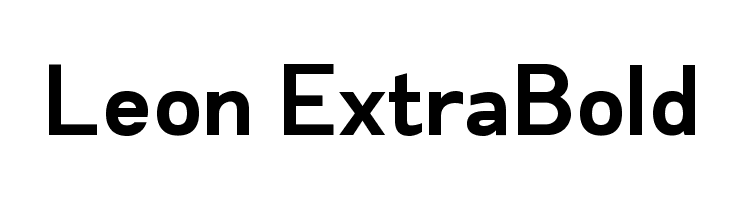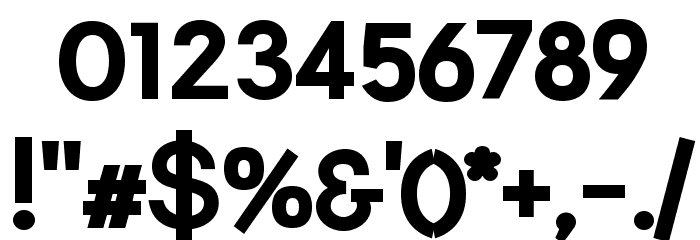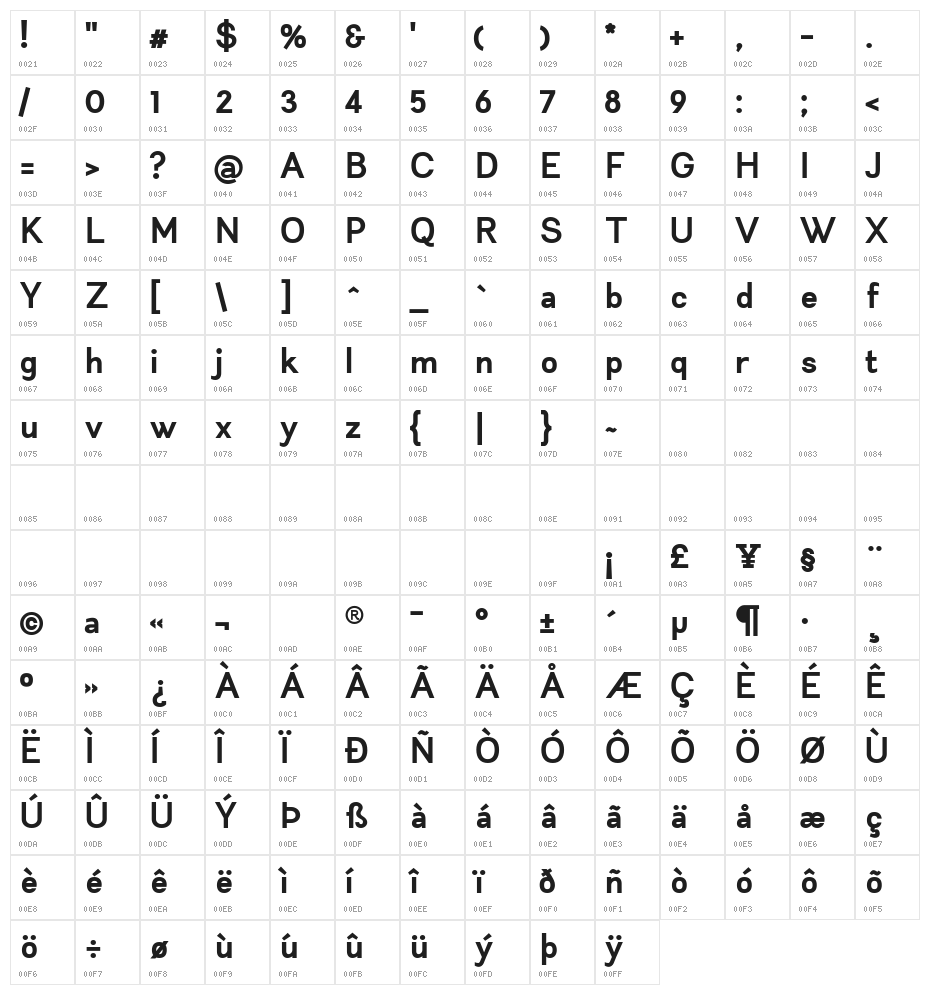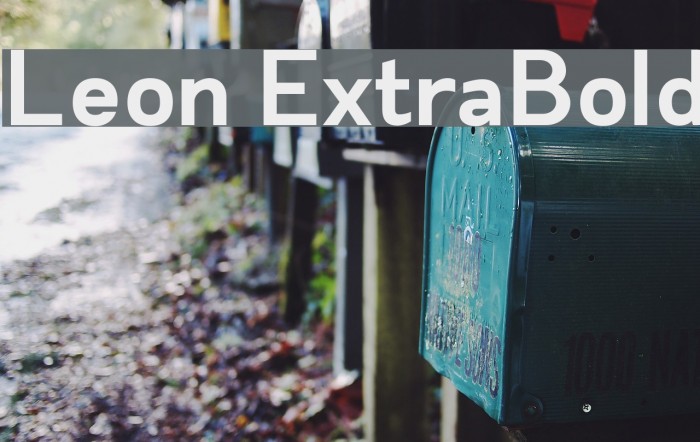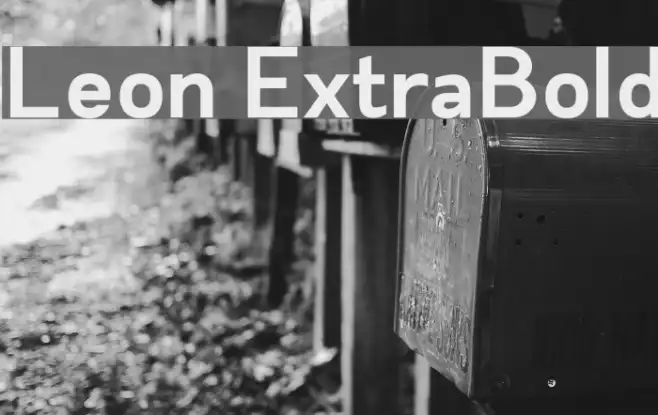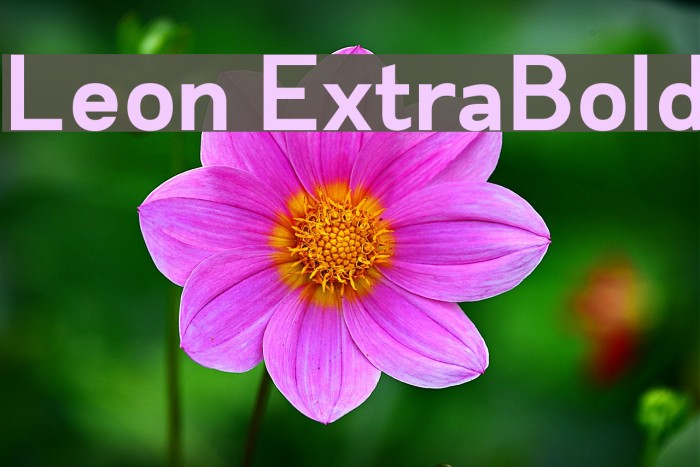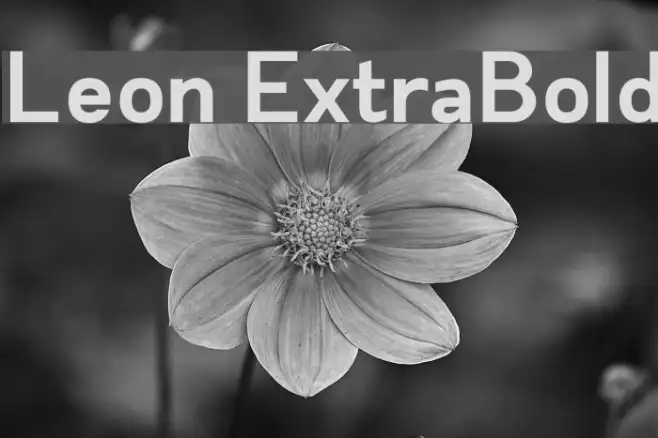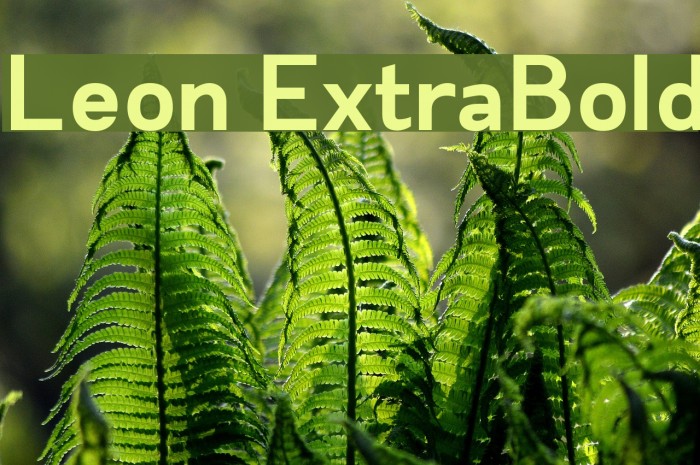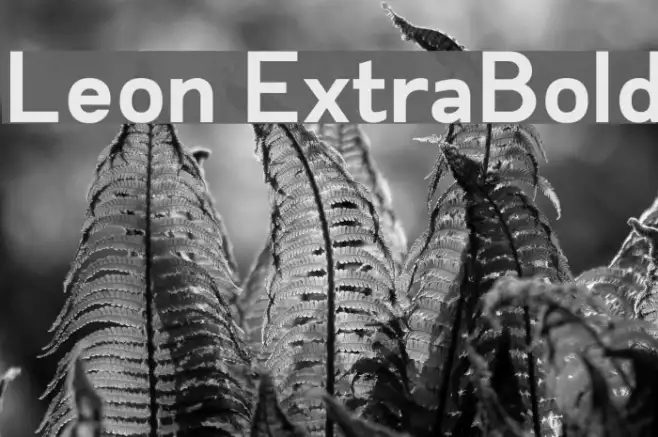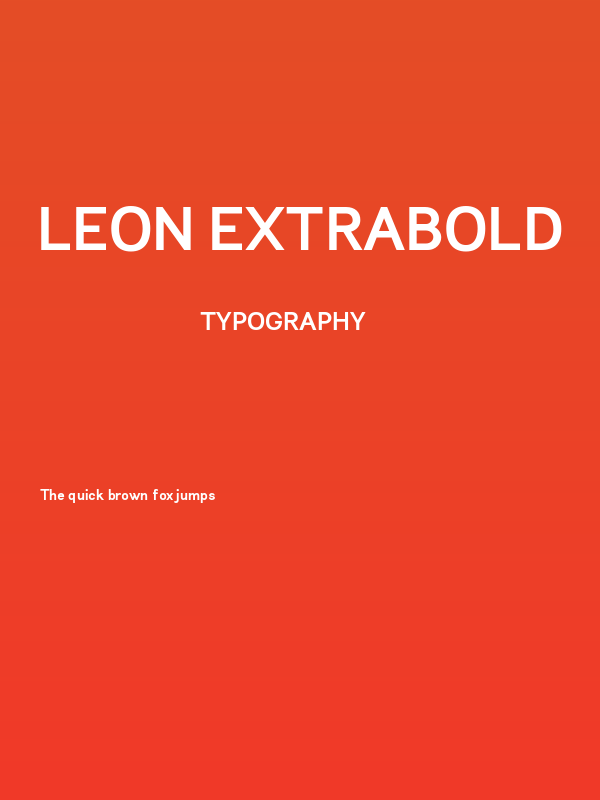
Leon ExtraBold Font
Leon ExtraBold Description
This font is a bold, sans-serif typeface characterized by its strong and impactful presence. The letters are uniformly thick, providing a sense of stability and modernity. The uppercase and lowercase letters maintain a consistent height ratio, ensuring readability and balance. The numerals are clear and distinct, matching the boldness of the alphabet characters. Special characters are well-defined, making them suitable for various design needs. Overall, this font exudes confidence and clarity, making it ideal for attention-grabbing headlines and branding materials.